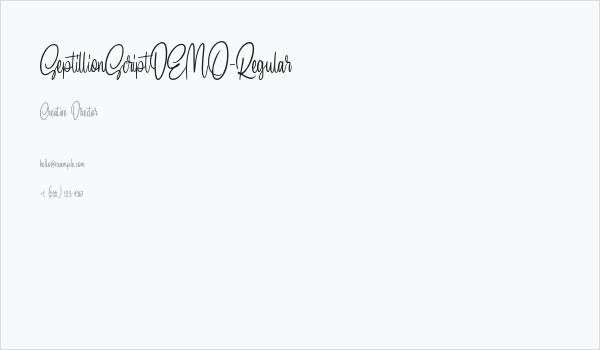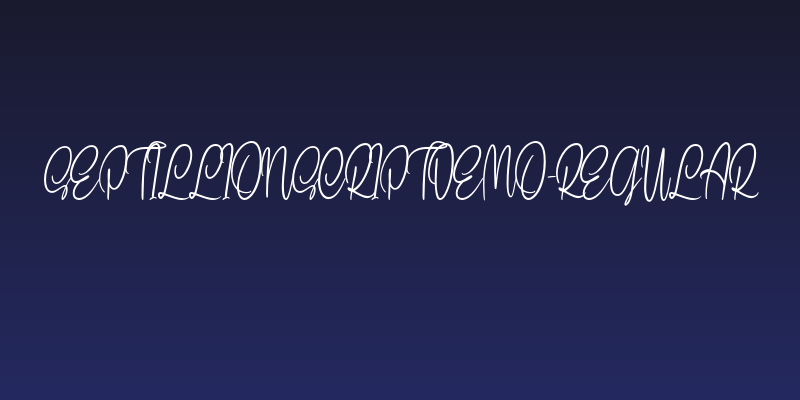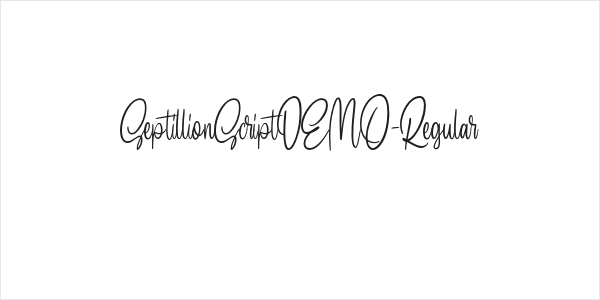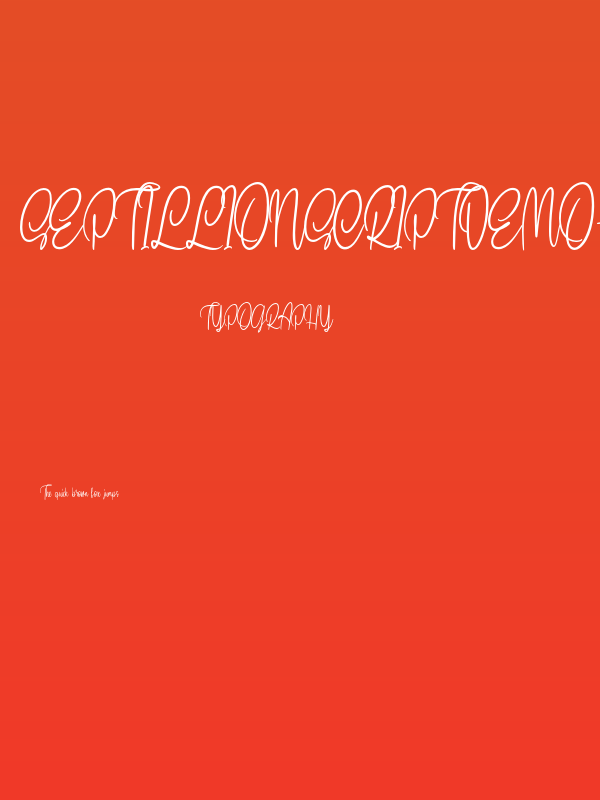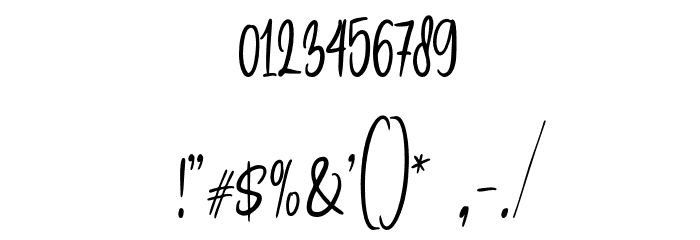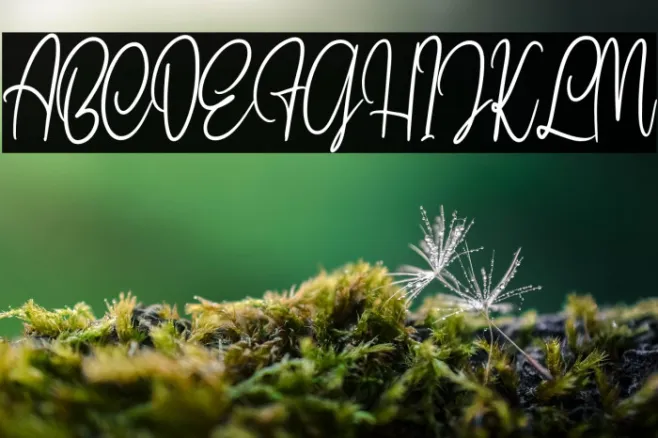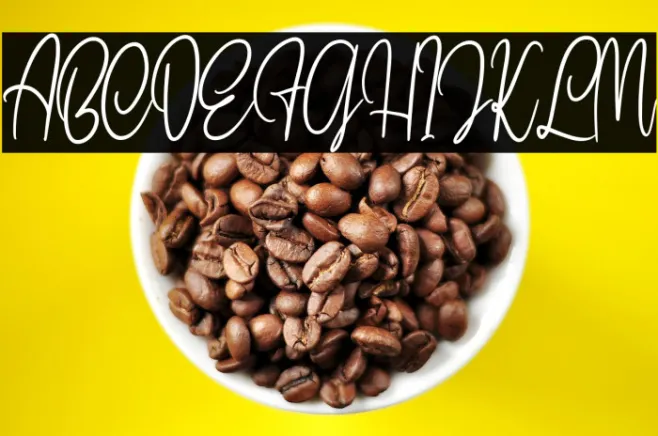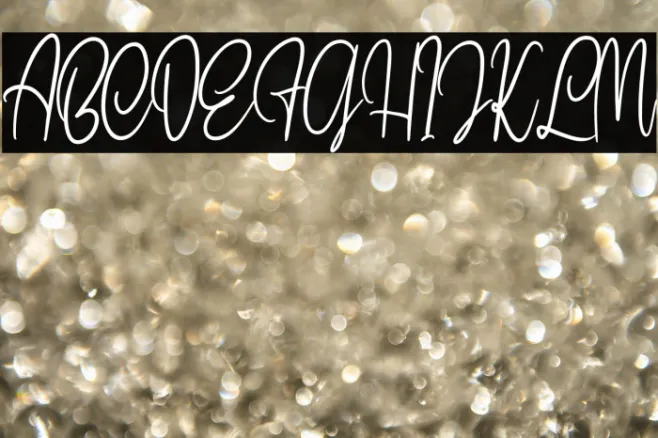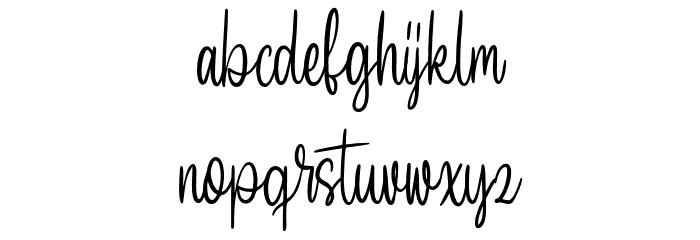
SeptillionScriptDEMO-Regular Font
SeptillionScriptDEMO-Regular Description
This script font features a flowing, elegant style with a handwritten appearance. The letters are connected, creating a seamless and fluid look that is both sophisticated and approachable. The uppercase letters are tall and slightly narrow, with graceful curves and loops that add a touch of flair. The lowercase letters maintain a consistent flow, enhancing the overall cohesiveness of the design. The numerals and special characters complement the alphabet with similar stylistic elements, ensuring a harmonious look across all text. This font is ideal for projects that require a personal touch, such as invitations, greeting cards, or branding materials.
| Proposed Projects | Ideal for invitations, greeting cards, branding materials, and any project requiring a personal touch. |